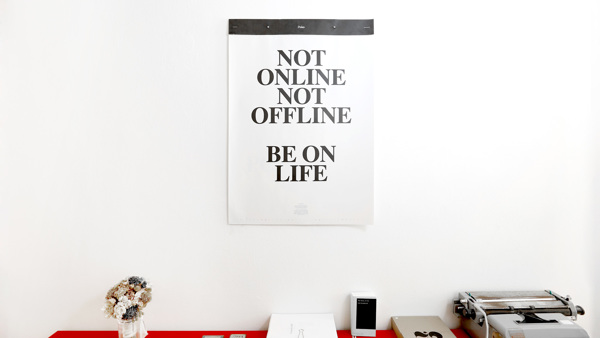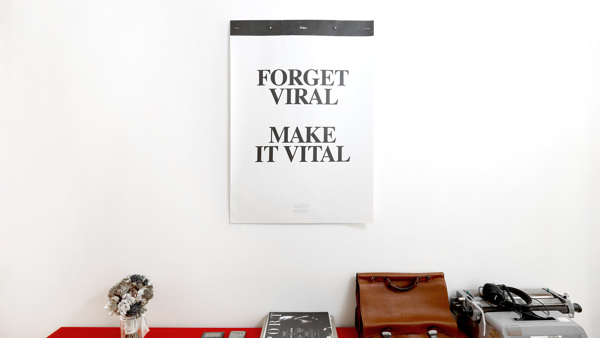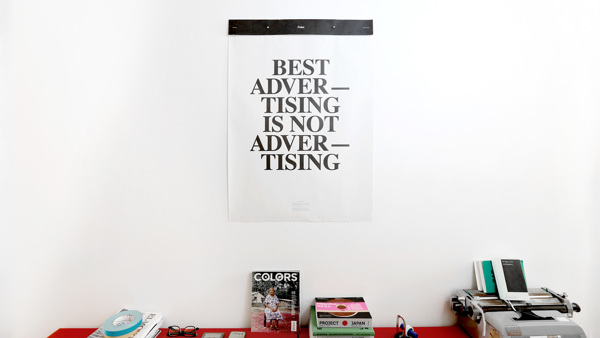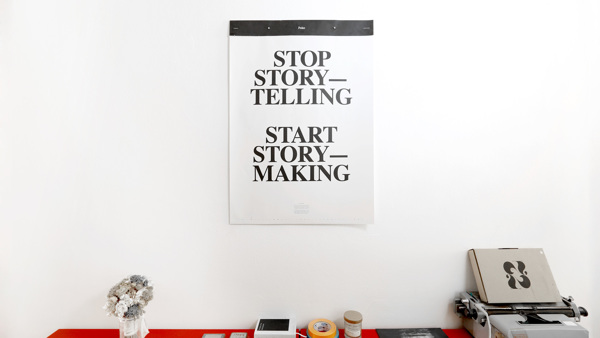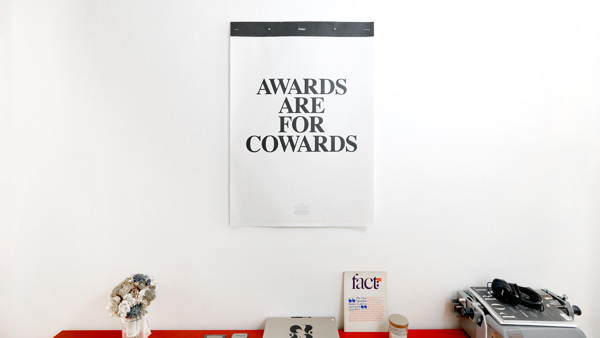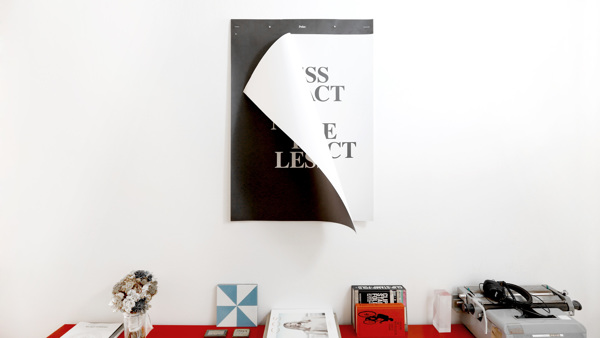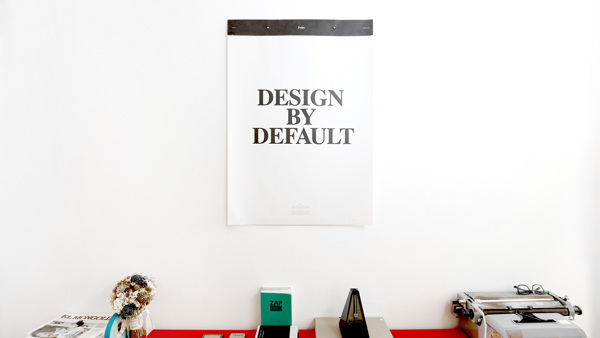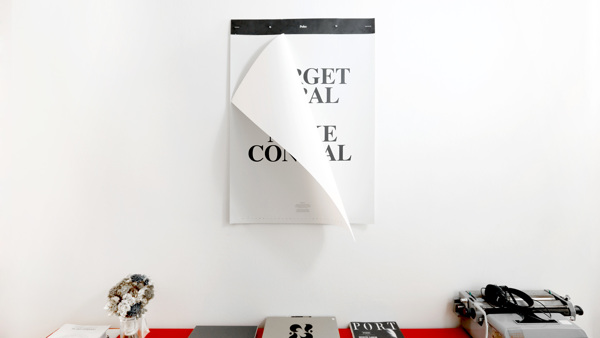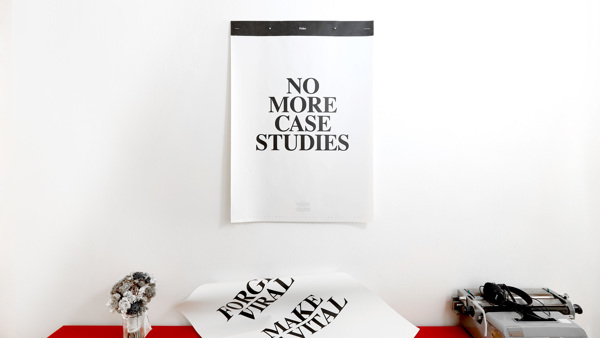
A manifesto for seeing and believing
Solo design agency, were called by Advertising Company Poko to design a calendar like a manifesto, with every month statements which the company believed and follows. A series of posters for clients and friends have been designed, featuring the messages with a straight-forward impact, which was enhanced also by the usage of the serif capitals.